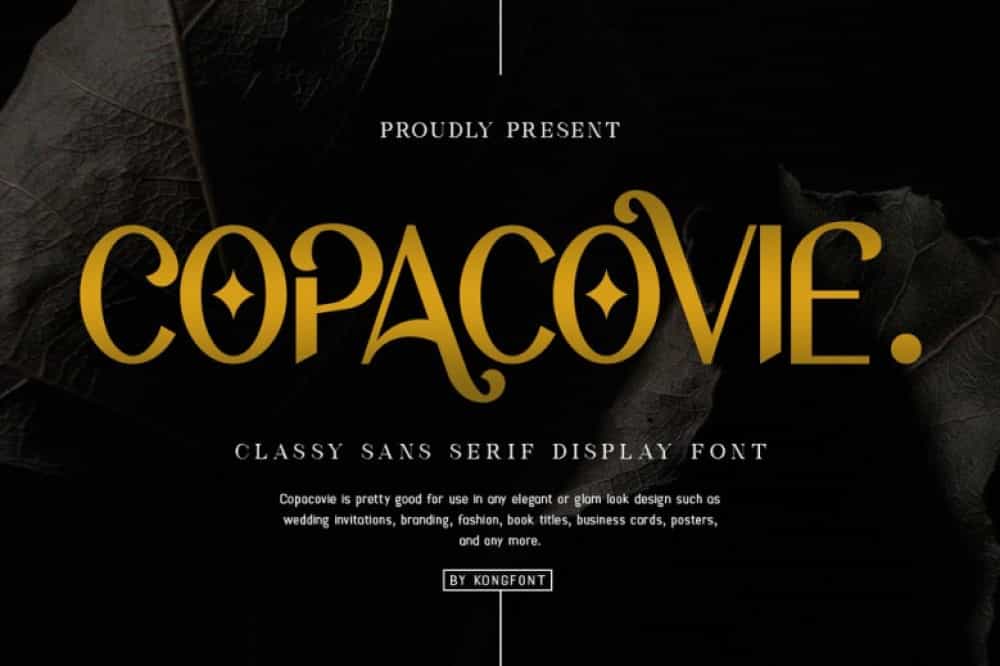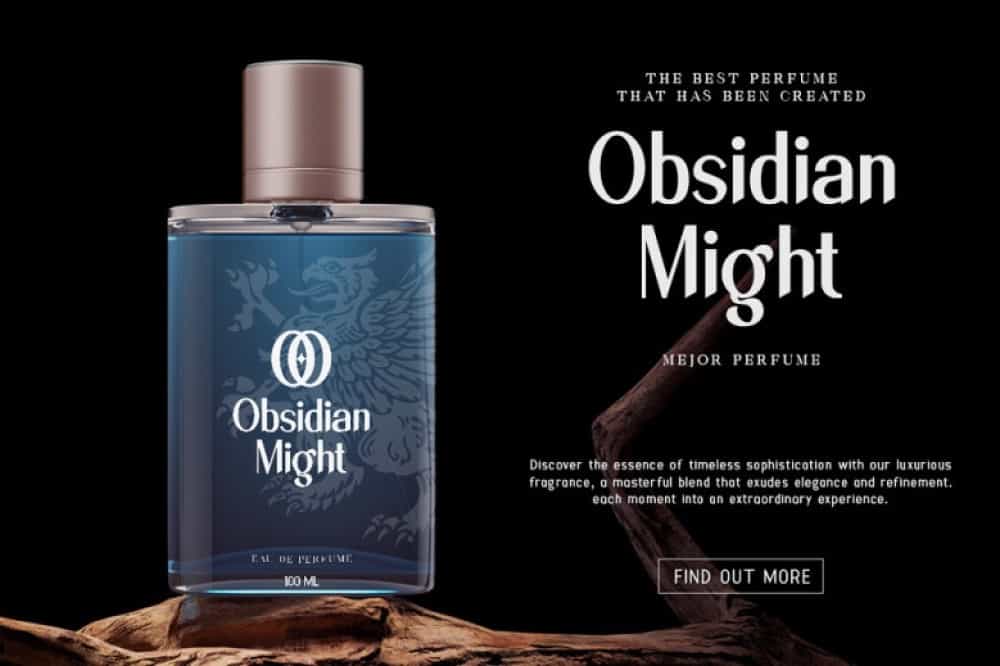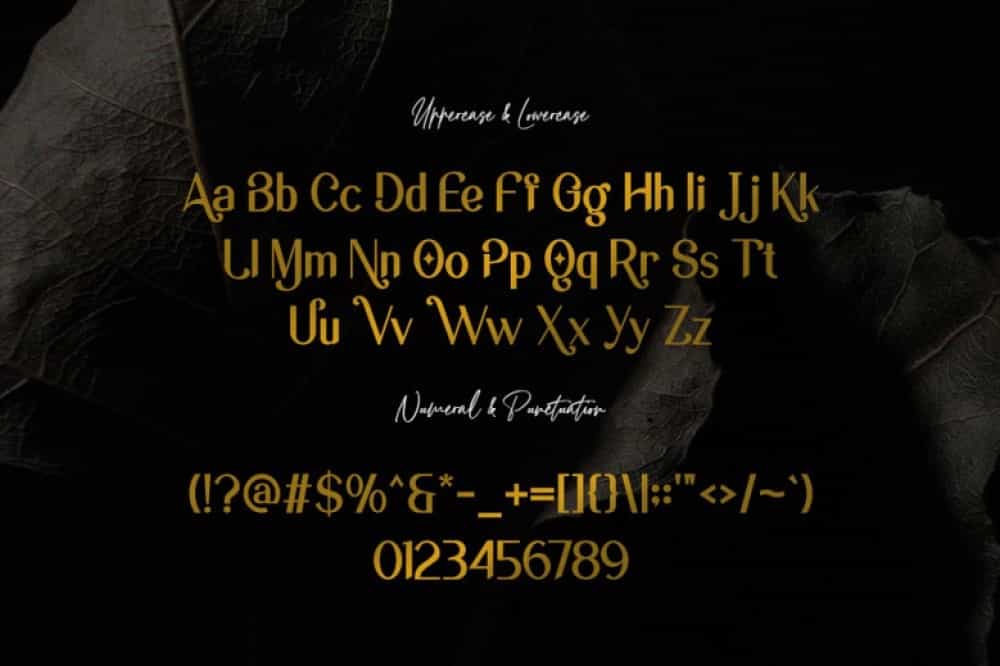
Copacovie is a sans-serif display font collection which we present under the name Copacovie. Even though it belongs to the set of contemporary fonts, Copacovie Font has a rather decorative appearance and may be used as the focal point of certain designs like decorative typography elements.